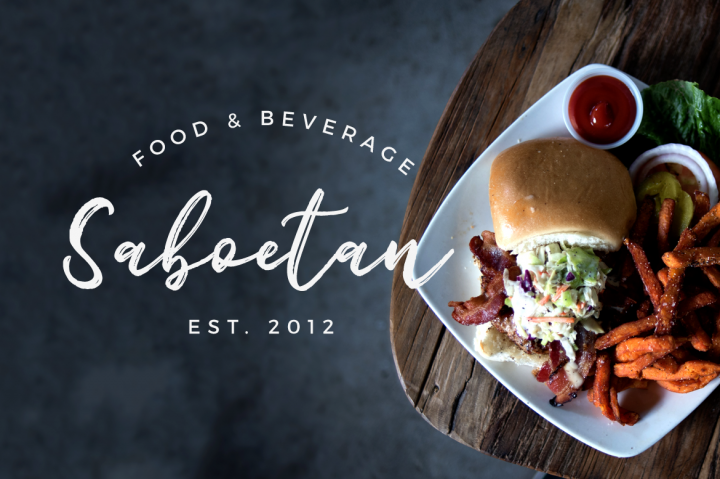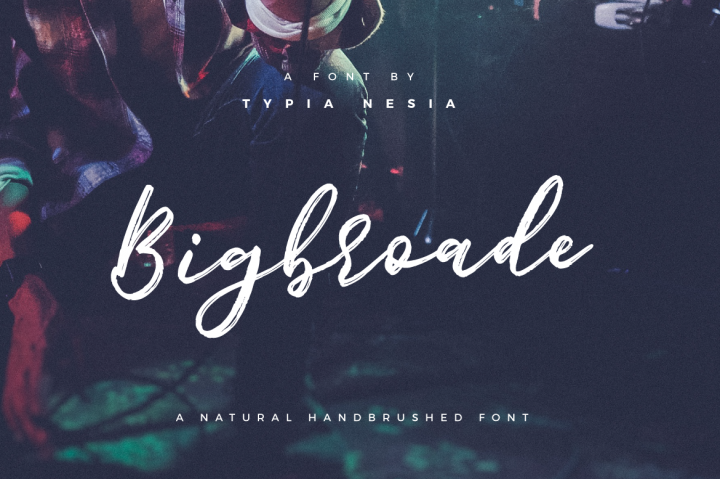
Bigbroade Script
Bigbroade Script Font
Bigbroade font is suitable for any design needs, modern invitation design, branding, blog design, modern advertising design, invitation, Art Quote, Home decor, Book/Cover Title, Invitation, special events, birthday, custom mug, pillow, t-shirts, any handbrushed signature style needs and more.